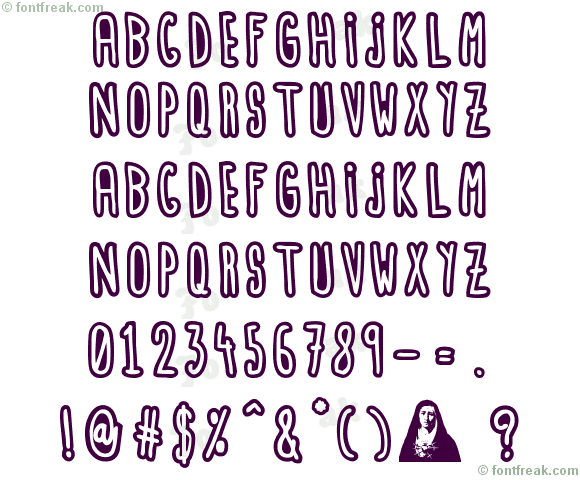
maria_dolores
About maria_dolores
The maria_dolores font, designed by woodcutter Manero, is a distinctive display typeface that beautifully blends artistic flair with modern sensibilities. This font features a unique, playful style characterized by its rounded forms and varied stroke weights, creating an eye-catching visual appeal. The contrasting elements within the letters lend a dynamic quality, while the ample spacing contributes to its legibility, making it suitable for various applications.
This typeface is ideal for a range of creative projects. Its whimsical charm makes it a fantastic choice for wedding invitations, where it can evoke a sense of romance and celebration. Additionally, the maria_dolores font is perfect for movie posters, particularly for indie films or quirky genres that require a standout title. Restaurant menus can also benefit from this font, as it adds an inviting touch to any culinary experience. Moreover, small business owners looking to create a memorable brand identity will find this typeface invaluable for logos or promotional materials.
What truly sets the maria_dolores font apart is its captivating combination of charm and functionality. The design encourages creativity while remaining practical for real-world applications, making it a valuable asset in any designer's toolkit. For those interested in enhancing their projects, the maria_dolores font free download opens the door to endless possibilities, ensuring that every design stands out in a crowded marketplace.